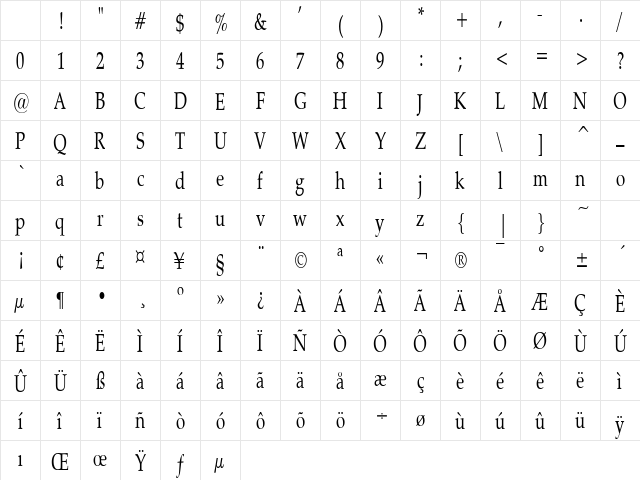
Complete PaduaCondensed Regular glyph index. Displaying only characters natively supported by PaduaCondensed Regular font.
PaduaCondensed is a composed and adaptable typeface that performs quietly and consistently across a wide range of design contexts. Its narrow stance lets it pack a punch even in space-constrained designs.